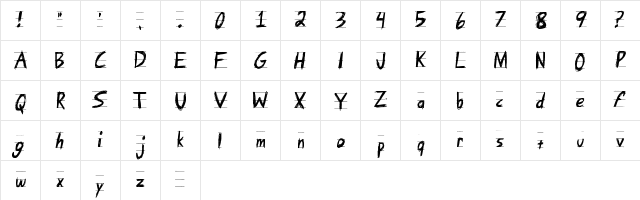
Angry Letter Regular
Design Context for Angry Letter
Angry Letter is a composed and adaptable typeface that performs quietly and consistently across a wide range of design contexts.